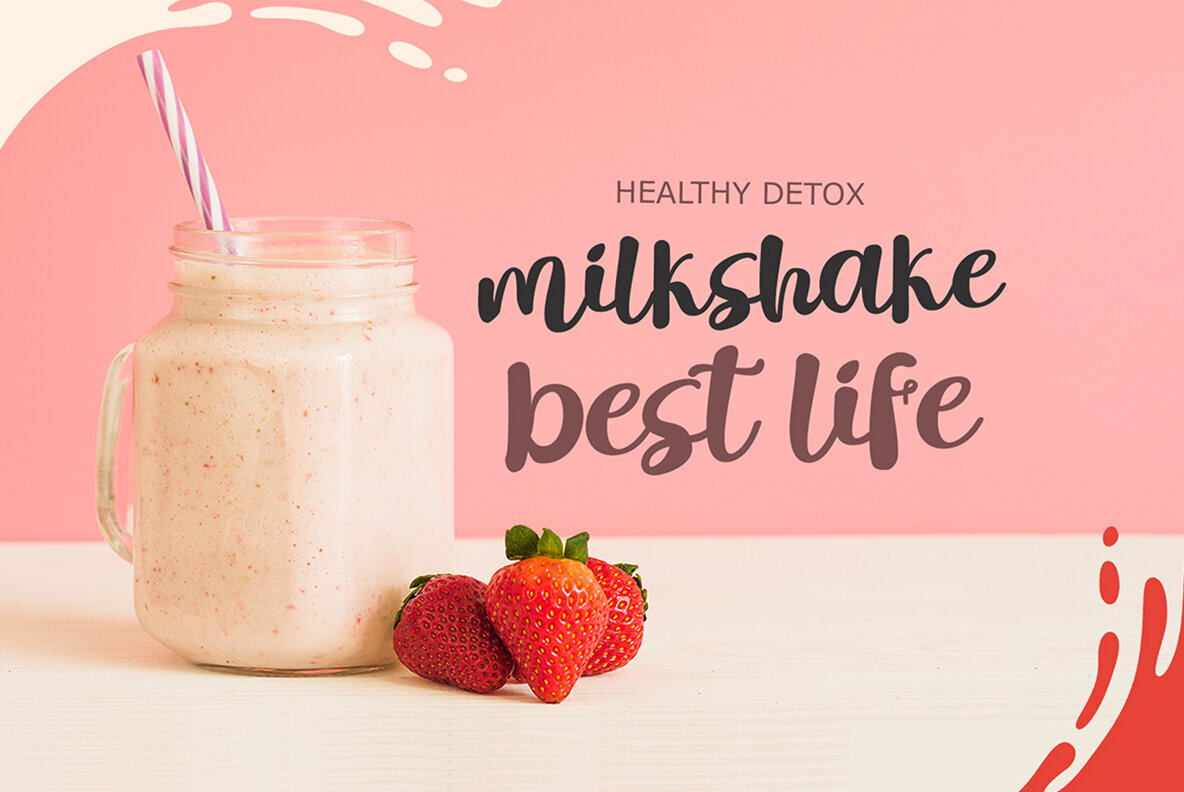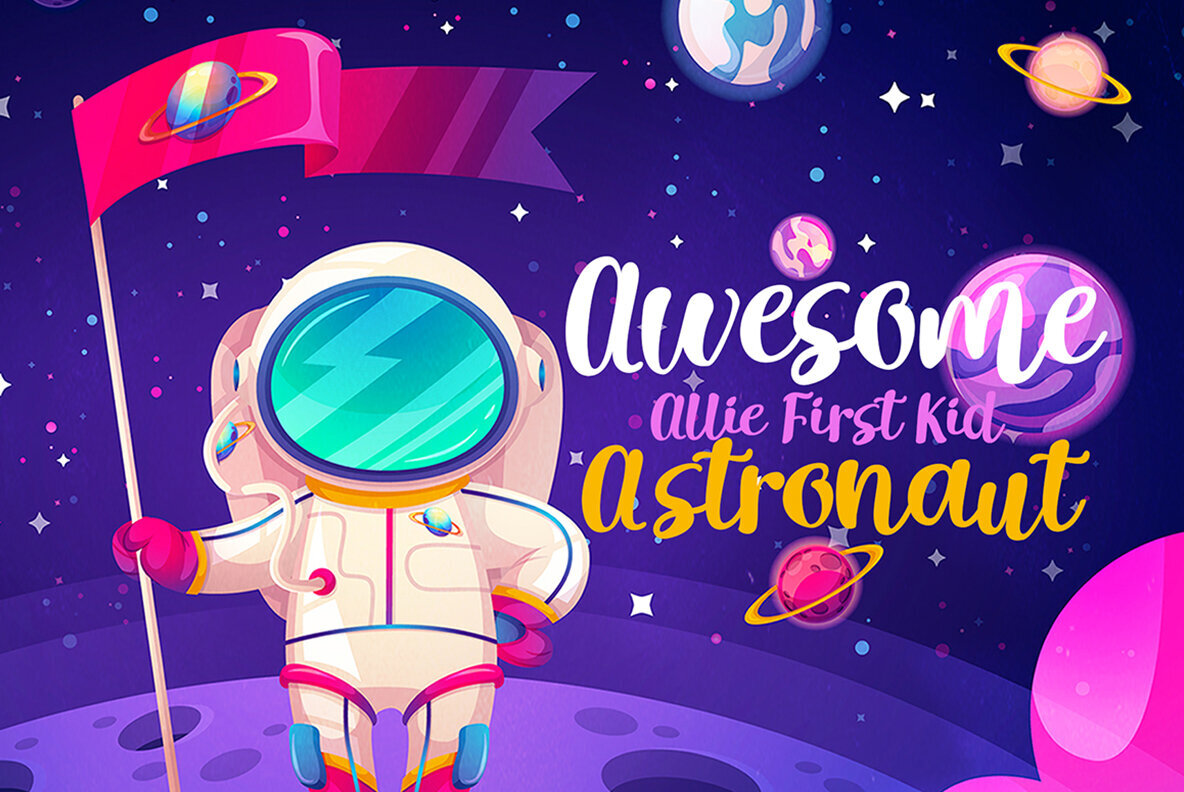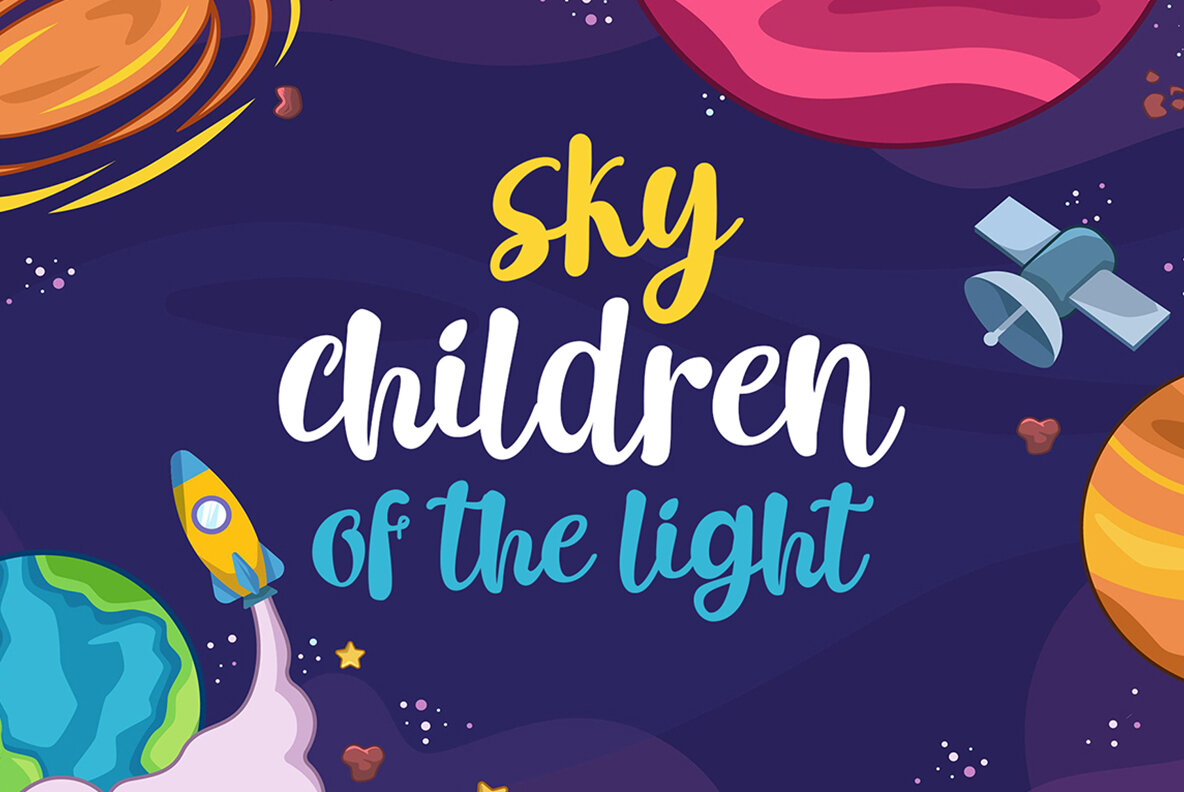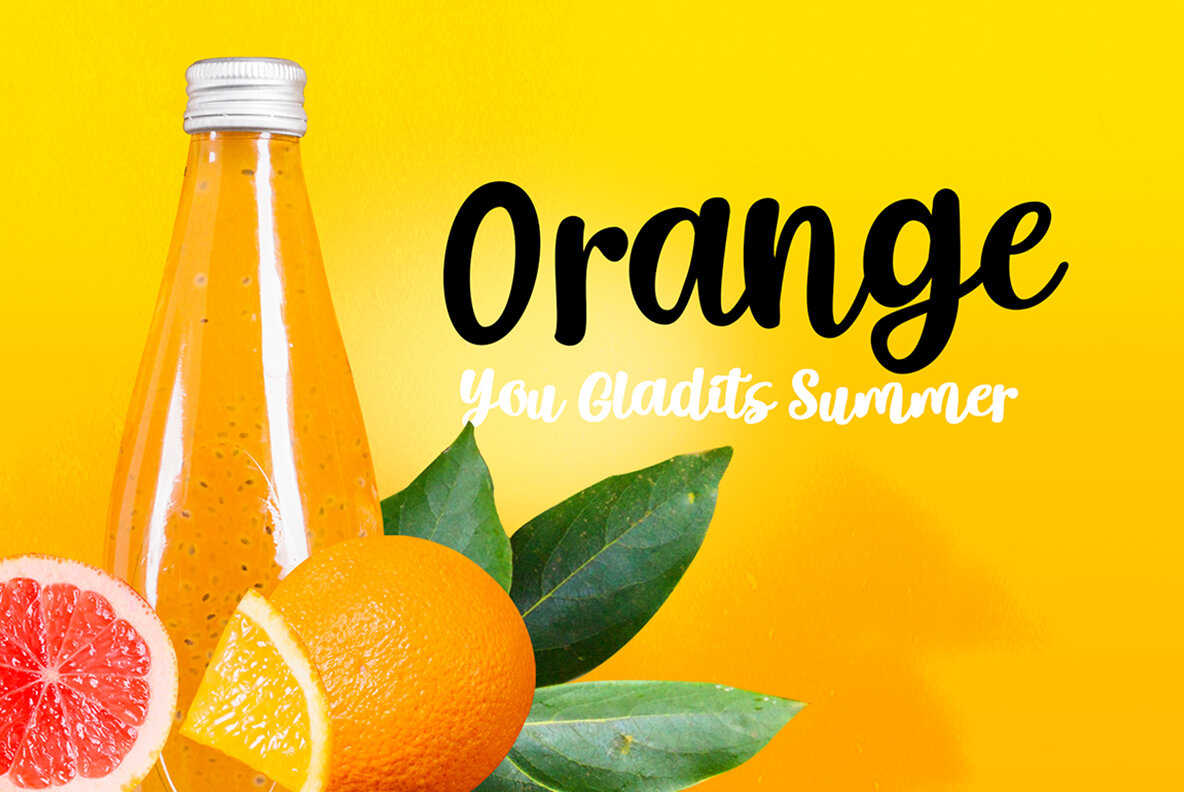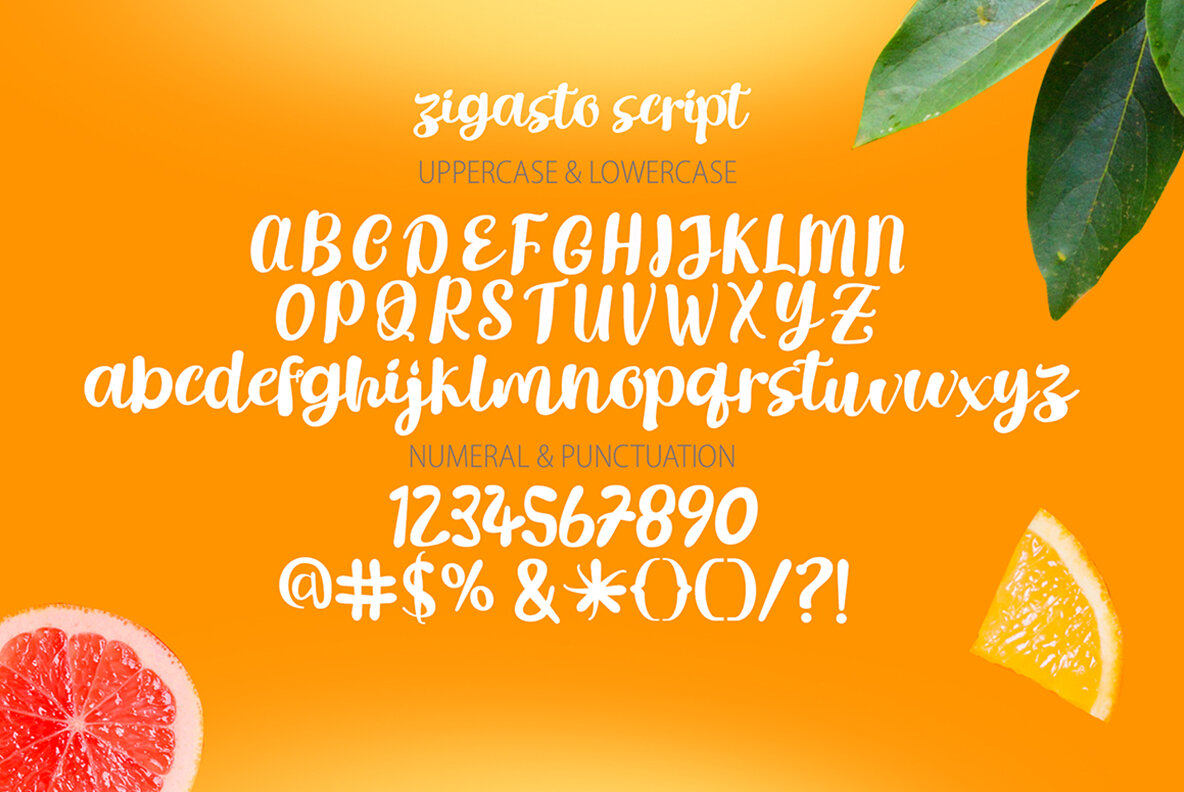
Zigasto Font
Zigasto Regular
Zigasto is a bold round script, ideal for vintage and retro designs. Perfect for logos, t-shirts, branding, books, posters, packaging, labels, and invitations, it features soft curves that give it a bubbly feel.